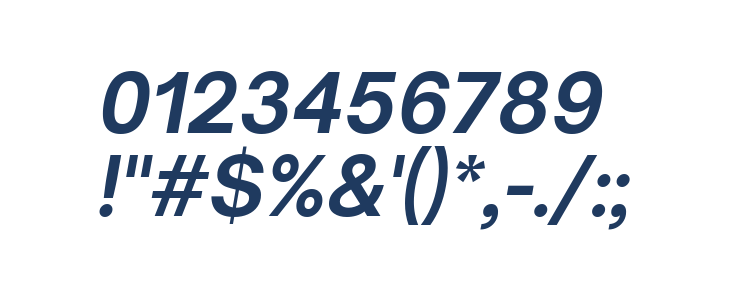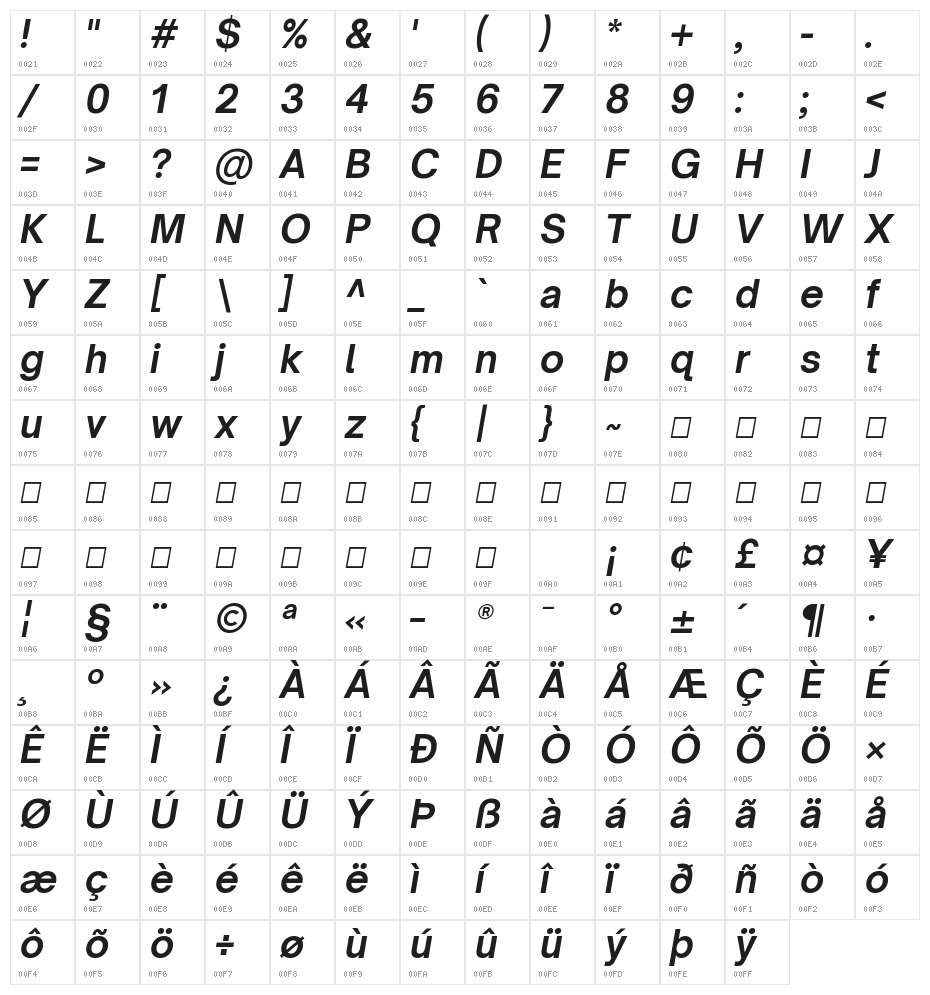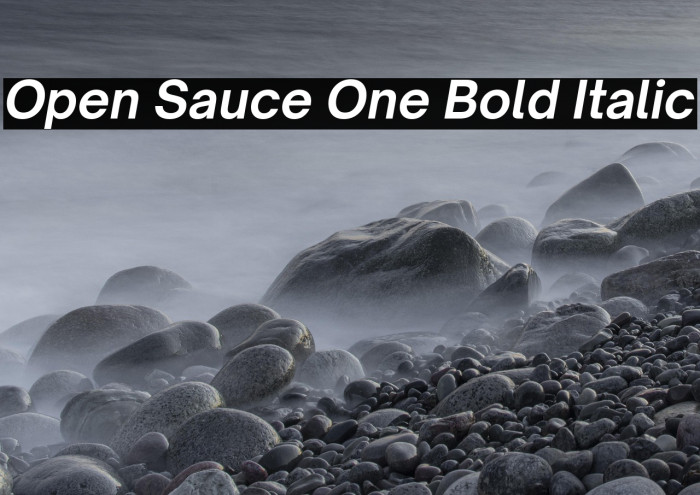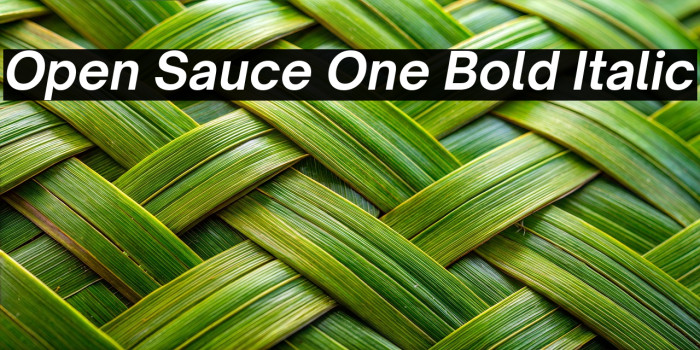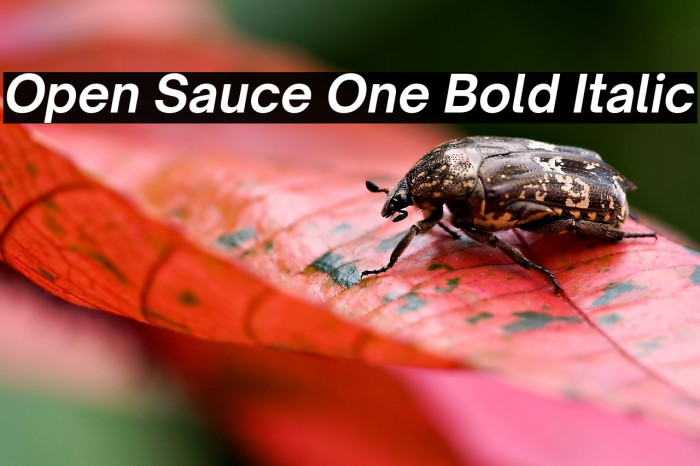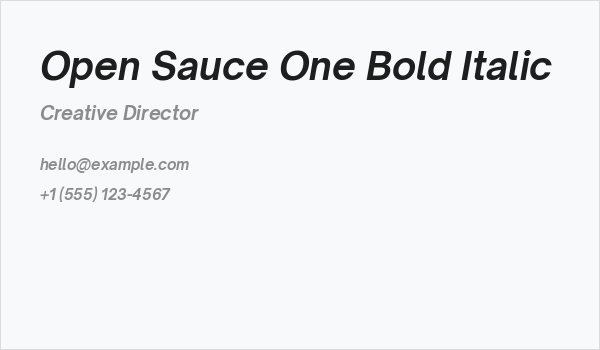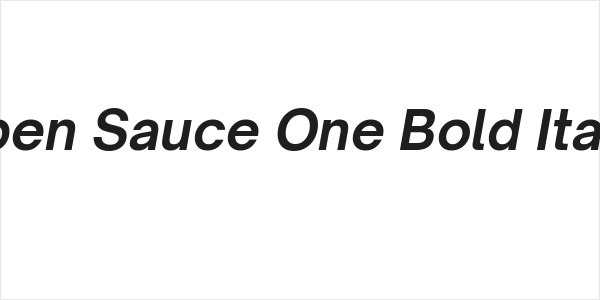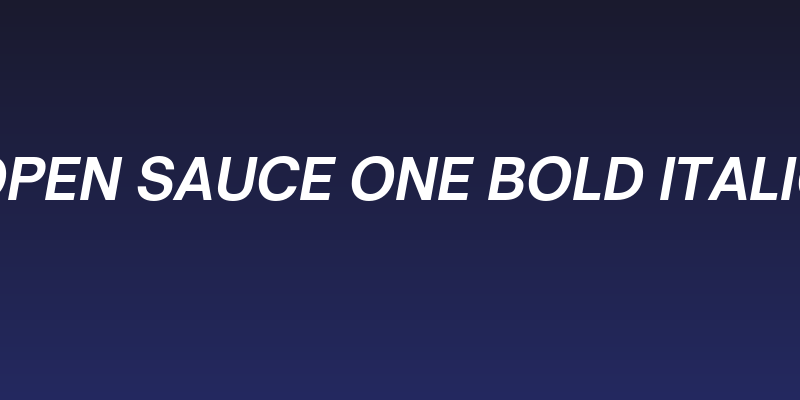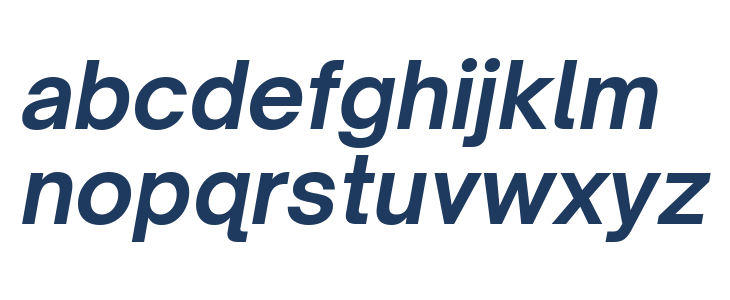
Open Sauce One Bold Italic Font
Open Sauce One Bold Italic Description
This typeface features a bold and italic style, offering a dynamic and modern appearance. The characters are slightly slanted, enhancing the italic effect, while maintaining a strong presence due to the bold weight. The sans-serif design ensures clean lines and a contemporary look, making it versatile for various applications. The uppercase and lowercase letters are well-proportioned, and the numerals are clear and distinct. Special characters are included, providing a comprehensive set for diverse usage. The overall style is sleek and professional, suitable for both digital and print media.